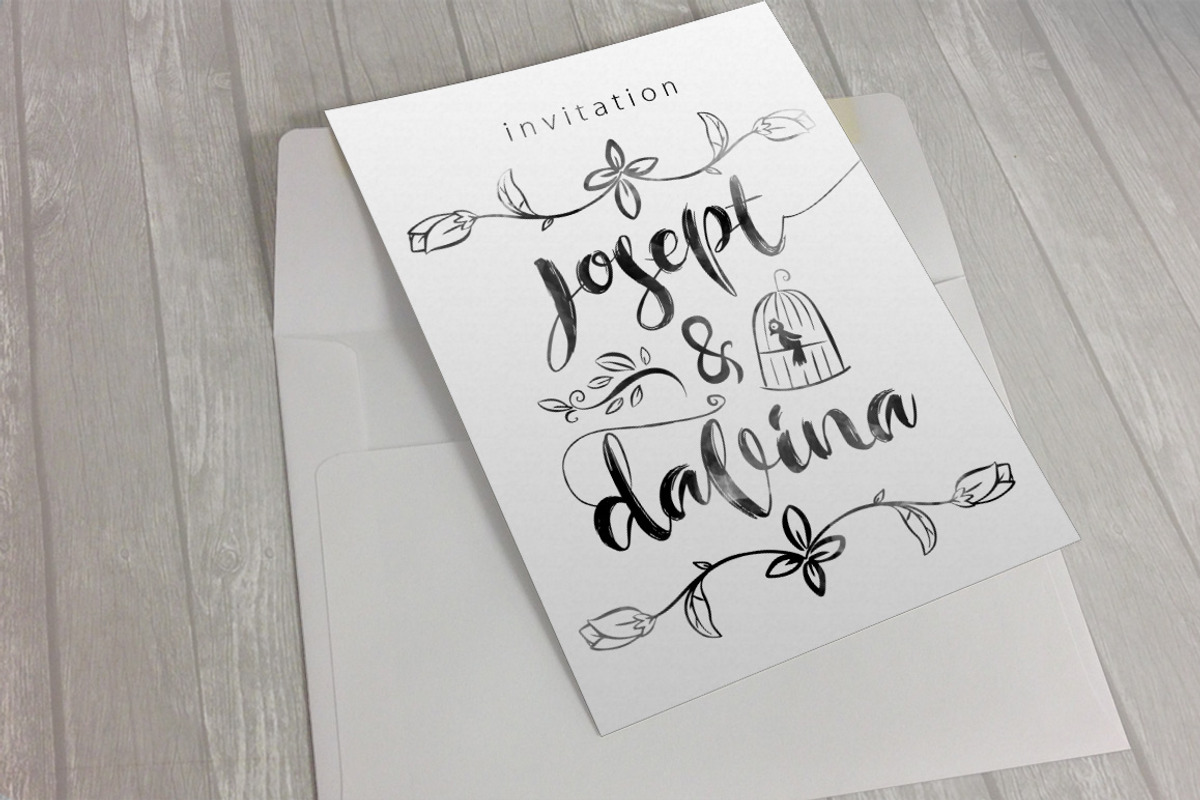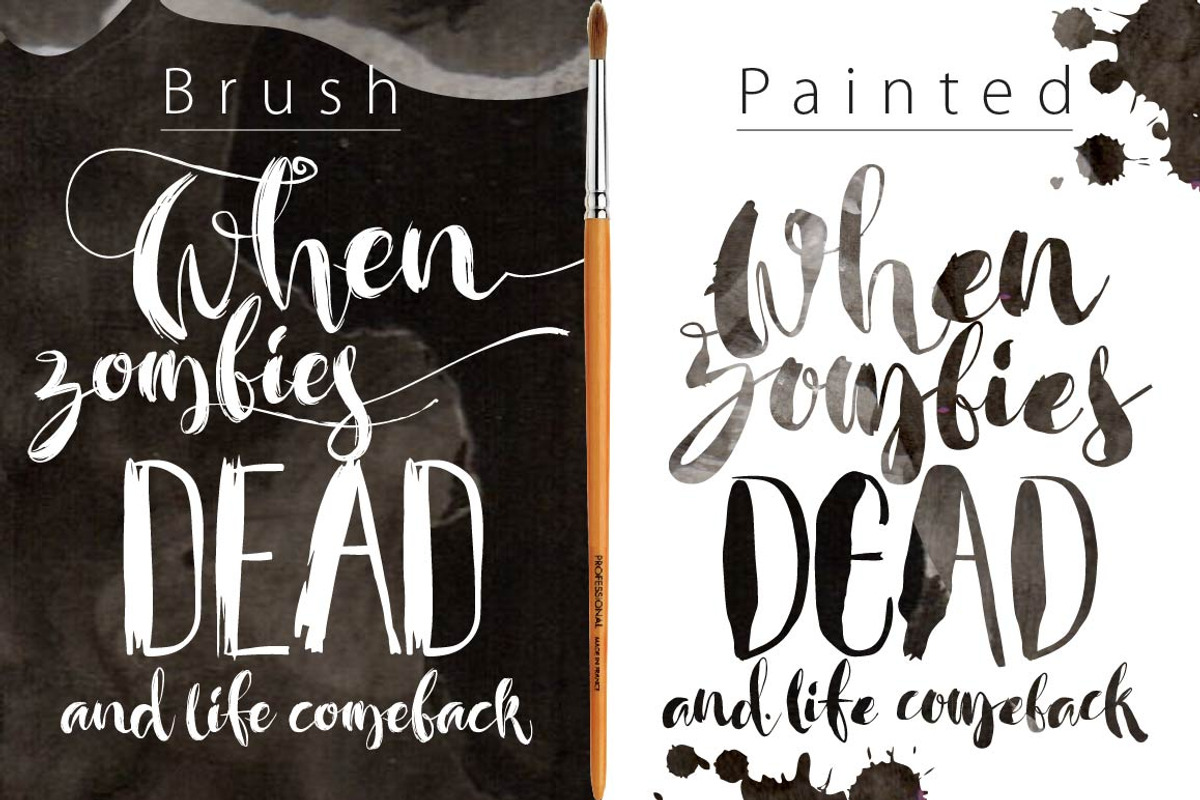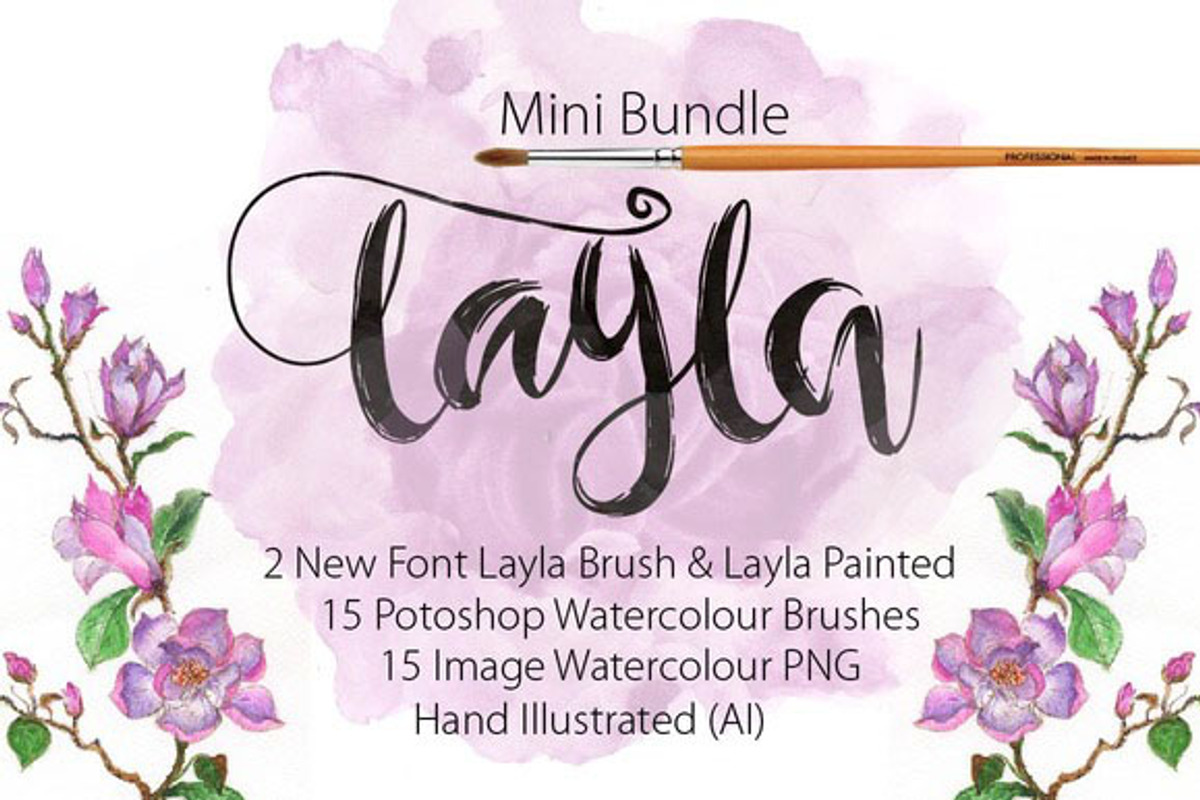
Mini Bundle Font Layla
Mini Bundle Font Layla by Olexstudio is a font selected for branding, posters, packaging, typography.
- layla is a great font hand lettering brush, there are two different fonts, font layla brush and font layla painted, very good for your produ
Why Mini Bundle Font Layla is worth a look
Mini Bundle Font Layla by Olexstudio fits naturally into Branding, posters, packaging, typography.